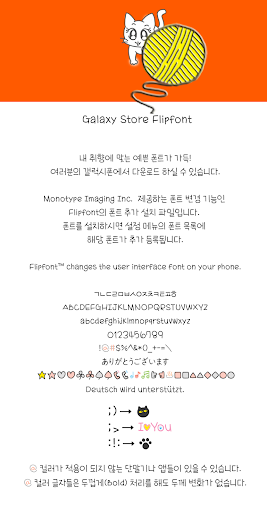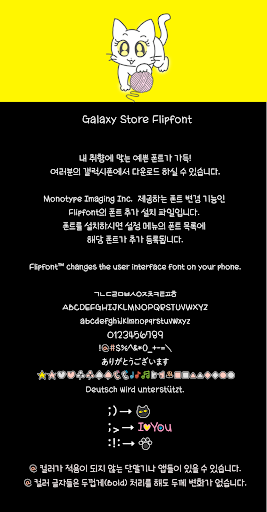
GFAboutCat
It is made with the motif of our youngest cute cat. It seems casual, but during playtime, a cat that makes all kinds of cute acts, and its round and cute face is expressed as an initial consonant "n", and the elongated characters everywhere are taken from the cat's flexible appearance. Let's find my pretty butterfly in the font that creates a cute cat even when we cook and cook. (Depending on Android OS or app, color dingbet may not be supported.)